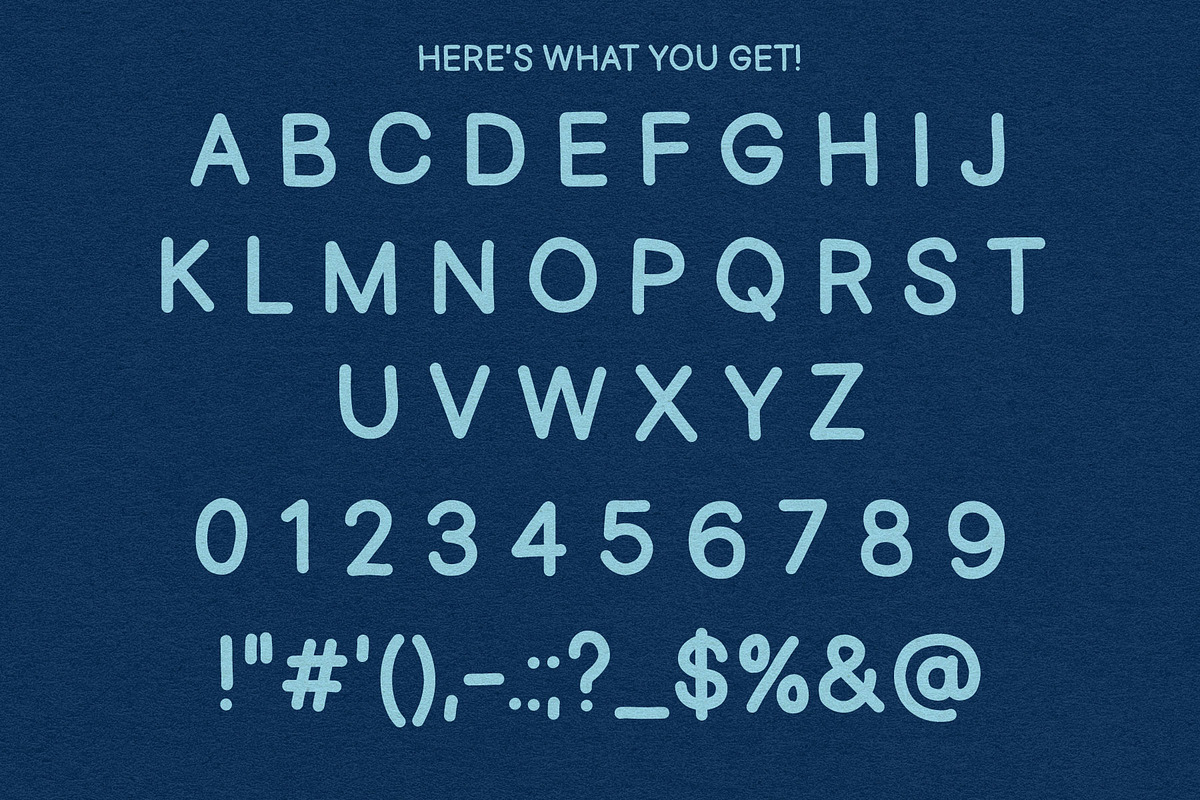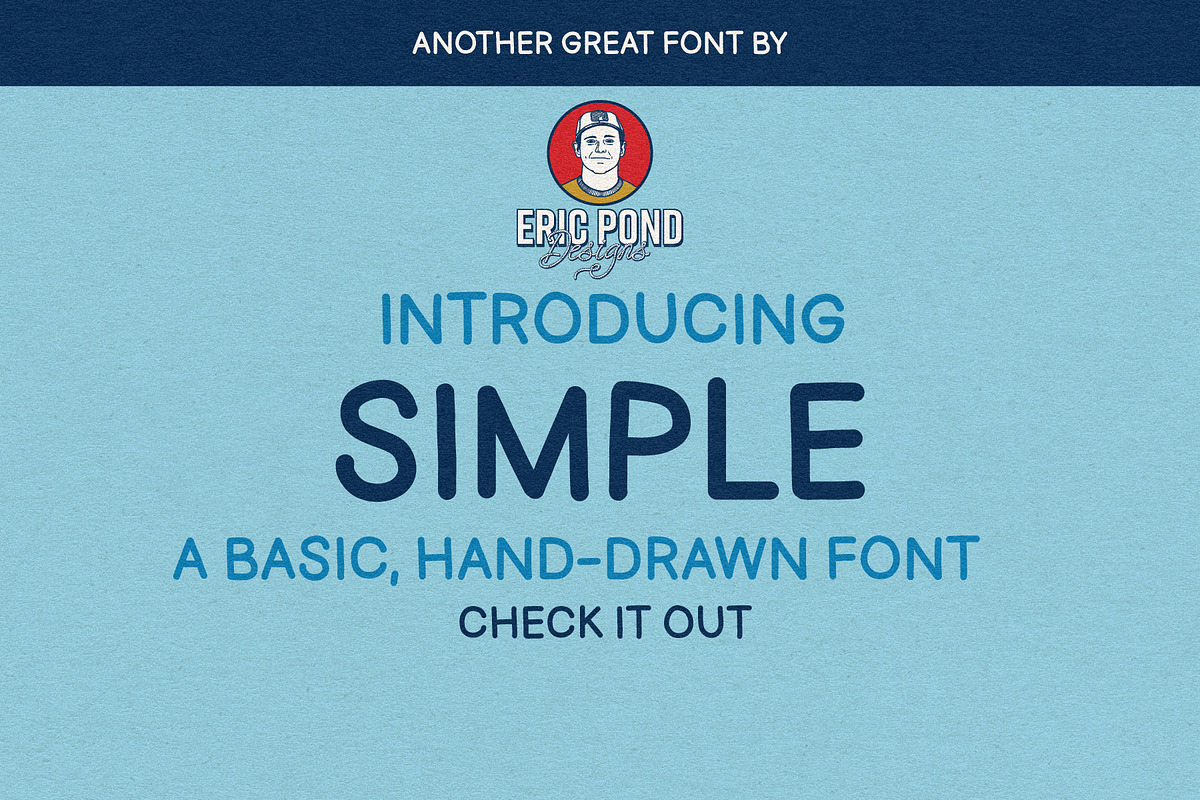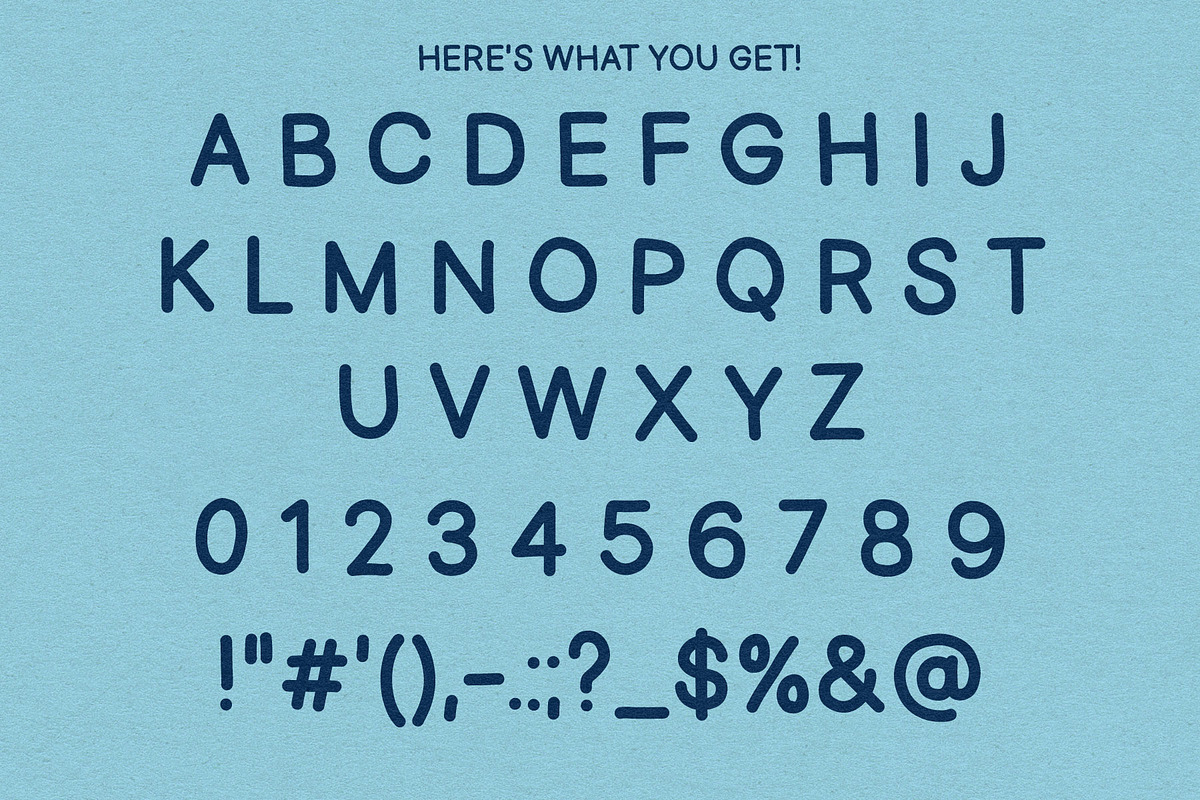
Simple
Introducing Simple! A basic hand-drawn font by Eric Pond Designs. Simple to use, Simple to read. This font includes uppercase letters, numbers and punctuation.